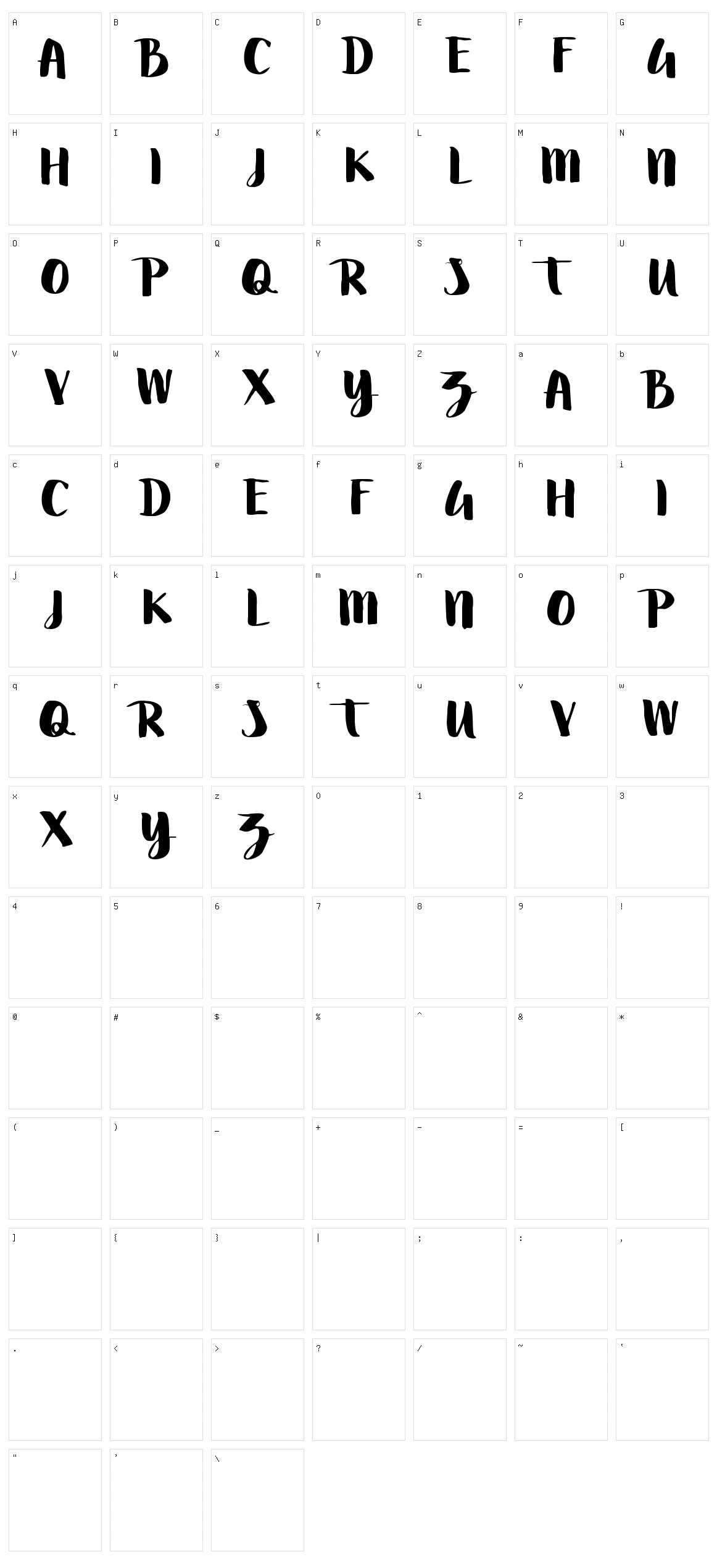
*Sweetiest Font*
Sweetiest Font was inspired from something loveable, partnership, poetry, and romantic nuance. Combine with hand drawn brush make the typeface looks very natural and cute.